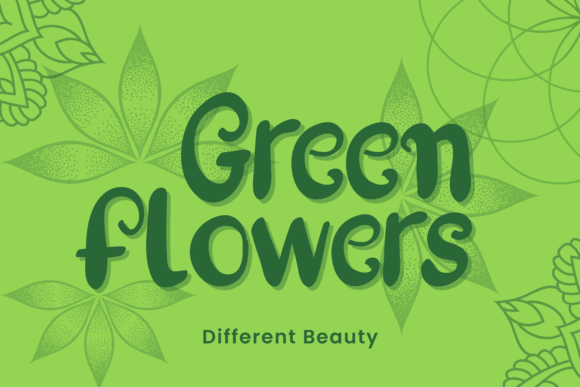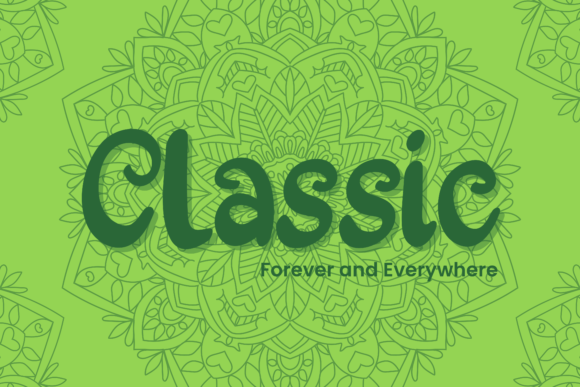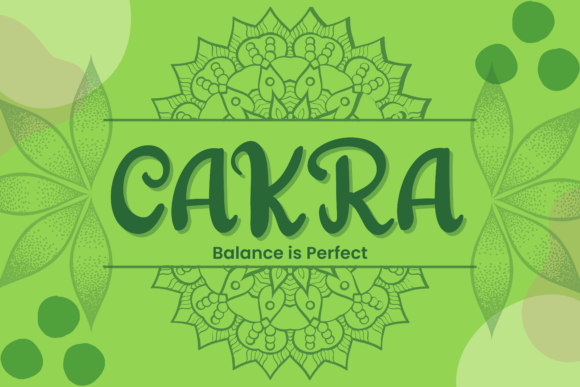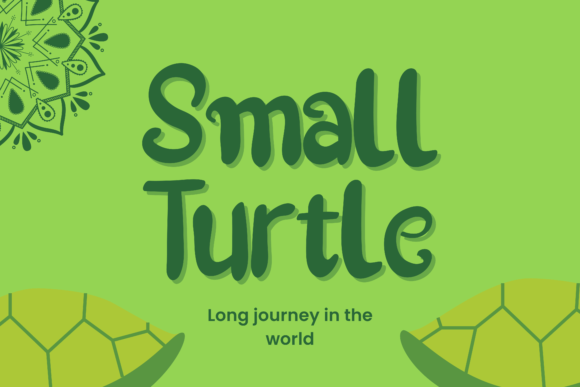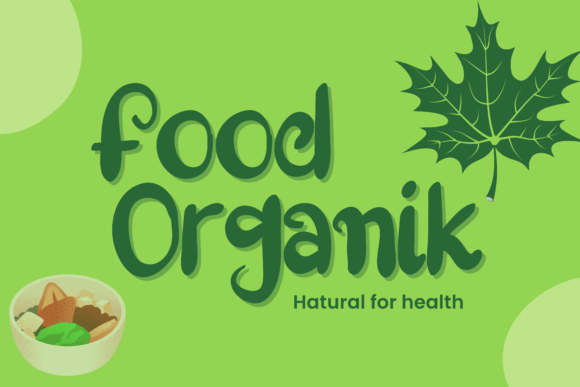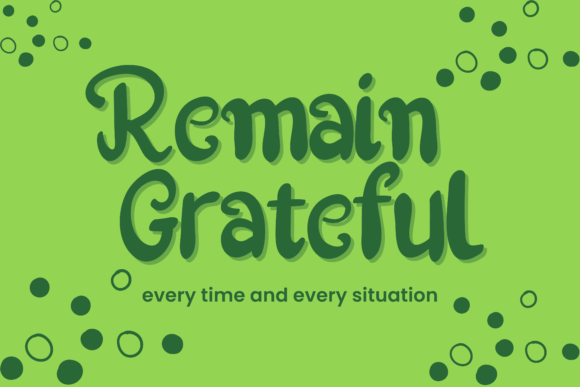
Discover the Charm of Andreas Font: A Cute Handwritten Delight
Are you on the hunt for a font that adds a touch of personality and whimsy to your designs? Look no further than Andreas Font, a beautiful, curly handwritten font that’s perfect for a wide range of creative projects. With its unique blend of unstructured ink strokes and charming aesthetic, Andreas is sure to capture the hearts of designers and crafters alike.
What Makes Andreas Font So Special?
Andreas Font is a true standout in the world of typography, boasting a distinctive look that’s both elegant and playful. Its curly, handwritten style is reminiscent of traditional calligraphy, yet its unstructured ink strokes give it a delightfully organic feel. This font is perfect for adding a personal touch to your designs, whether you’re working on a logo, invitation, or any other creative project.
One of the best things about Andreas Font is its versatility. Its charming aesthetic makes it suitable for a wide range of design projects, including:
- Logos: Create a memorable brand identity with Andreas Font, perfect for businesses, startups, and entrepreneurs looking to make a statement.
- Wedding Invitations: Add a touch of romance and whimsy to your wedding stationery with this beautiful font.
- T-Shirts: Design eye-catching apparel with Andreas Font, perfect for fashion brands, events, or personal projects.
- Letterheads: Elevate your business correspondence with a professional, yet charming, font.
- Labels: Create custom labels for products, gifts, or storage with a personal touch.
- News and Posters: Make your headlines and promotional materials stand out with Andreas Font’s bold, yet elegant style.
- Badges: Design custom badges for events, conferences, or businesses with a unique and eye-catching font.
Why Choose Andreas Font?
With so many fonts to choose from, why should you opt for Andreas Font? Here are just a few compelling reasons:
- Unique Aesthetic: Andreas Font boasts a distinctive look that’s sure to set your designs apart from the crowd.
- Easy to Read: Despite its curly, handwritten style, Andreas Font is surprisingly easy to read, making it perfect for body text and headlines.
- Highly Versatile: As mentioned earlier, Andreas Font is suitable for a wide range of design projects, from logos to wedding invitations.
- Beautiful Ink Strokes: The font’s unstructured ink strokes add a touch of organic charm, giving your designs a personal, handcrafted feel.
Tips for Using Andreas Font Effectively
To get the most out of Andreas Font, here are a few tips to keep in mind:
- Experiment with Sizes: Andreas Font looks great in a variety of sizes, from large headlines to smaller body text.
- Pair with Other Fonts: Try pairing Andreas Font with other fonts to create a unique and visually appealing typography combination.
- Use for Emphasis: Use Andreas Font to add emphasis to certain words or phrases in your designs, creating a clear visual hierarchy.
In conclusion, Andreas Font is a charming, curly handwritten font that’s perfect for designers and crafters looking to add a touch of personality to their projects. With its unique aesthetic, versatility, and beautiful ink strokes, it’s an excellent choice for a wide range of design applications. Whether you’re working on a logo, wedding invitation, or any other creative project, Andreas Font is sure to delight. So why not give it a try and see the difference it can make in your designs?